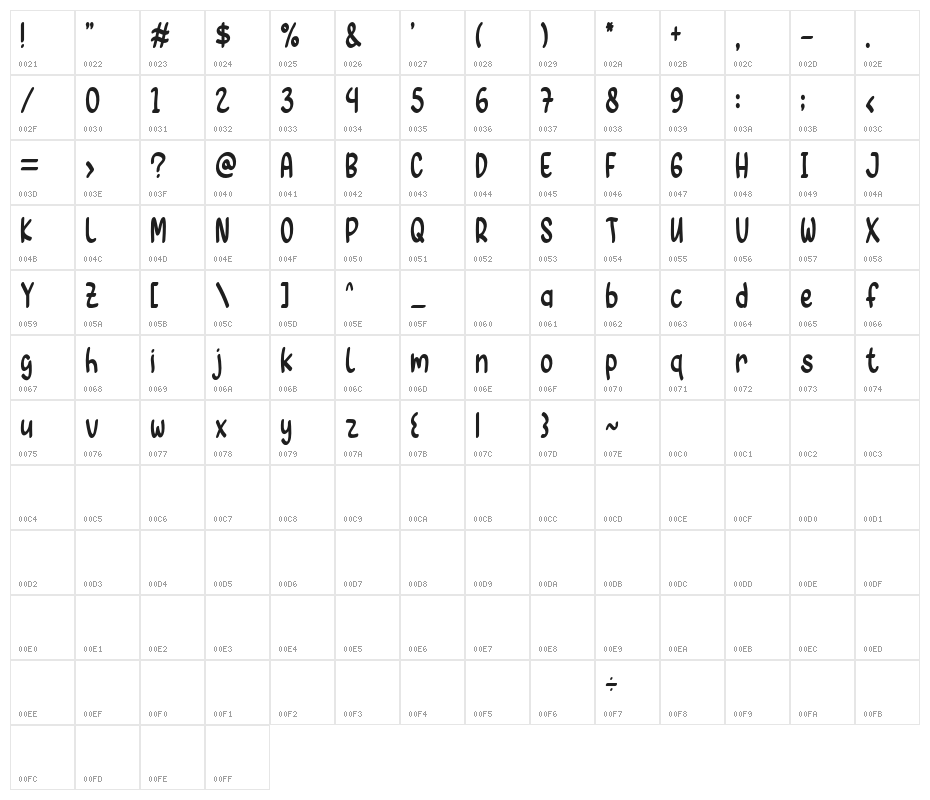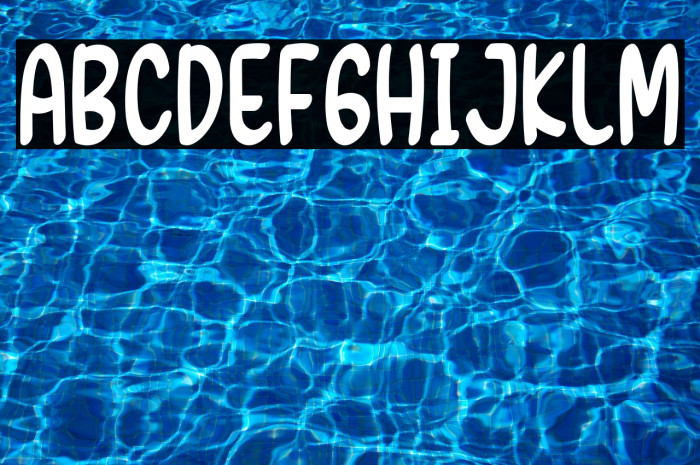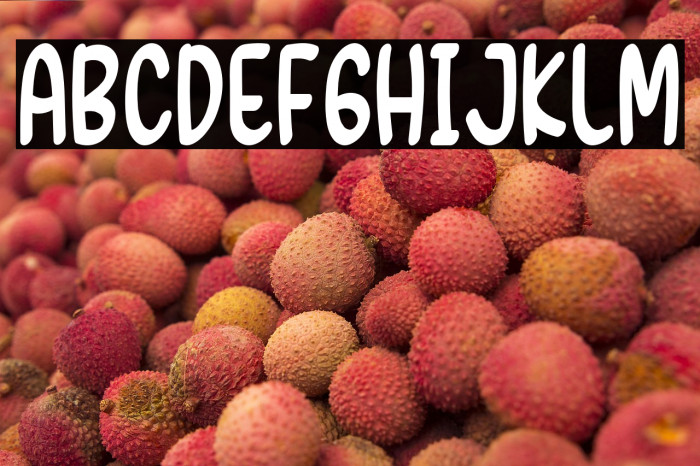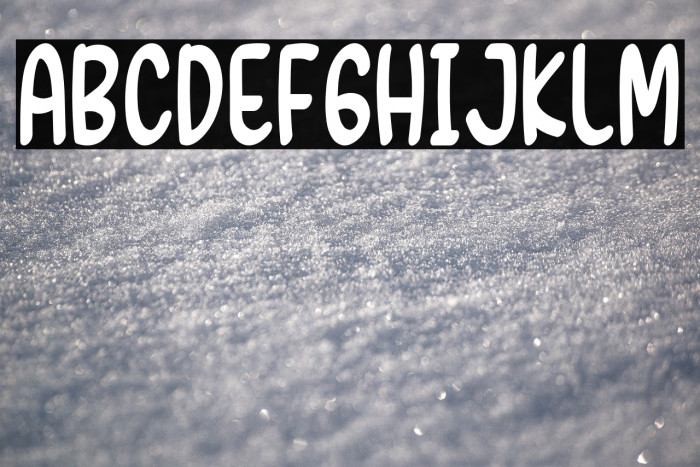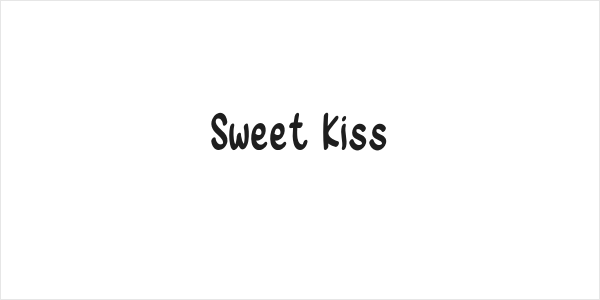
Sweet Kiss Font
Sweet Kiss Description
This playful and rounded font exudes a friendly and approachable vibe, characterized by its smooth curves and slightly irregular strokes. The letters are bold and have a hand-drawn appearance, giving them a whimsical and informal style. The uppercase and lowercase letters maintain a consistent flow, while the numerals and special characters complement the overall design with their rounded edges. This font is perfect for projects that require a touch of fun and creativity, such as children's books, playful branding, or casual invitations. Its legibility and charm make it suitable for both digital and print media.
| Proposed Projects | Ideal for children's books, playful branding, casual invitations, and creative projects. |